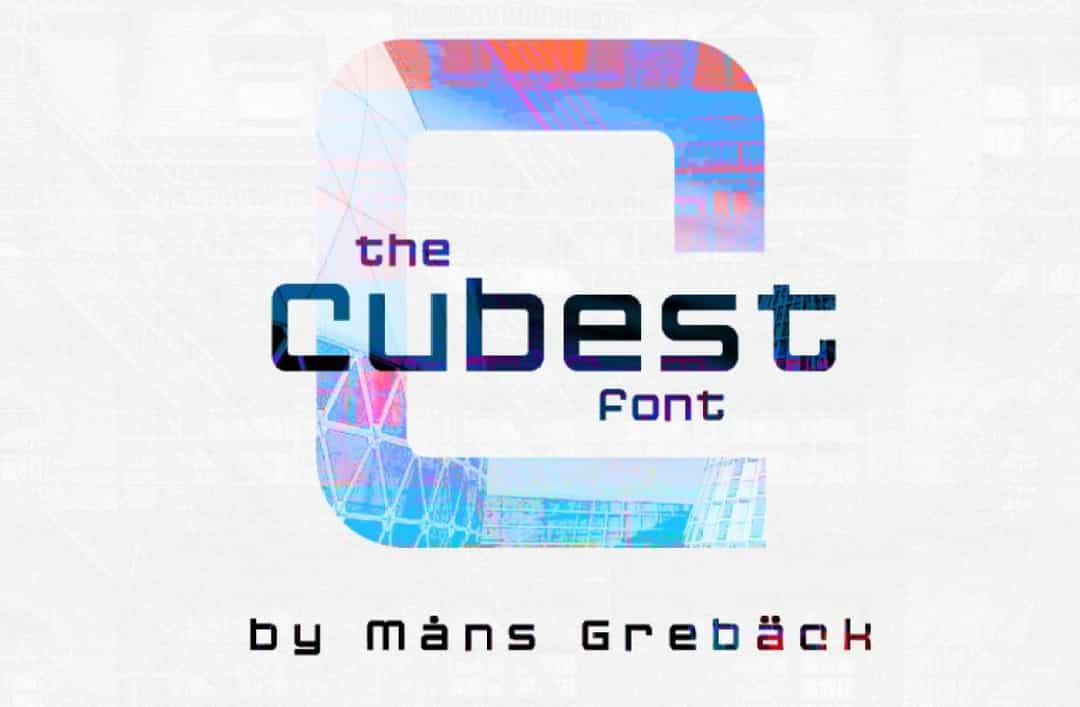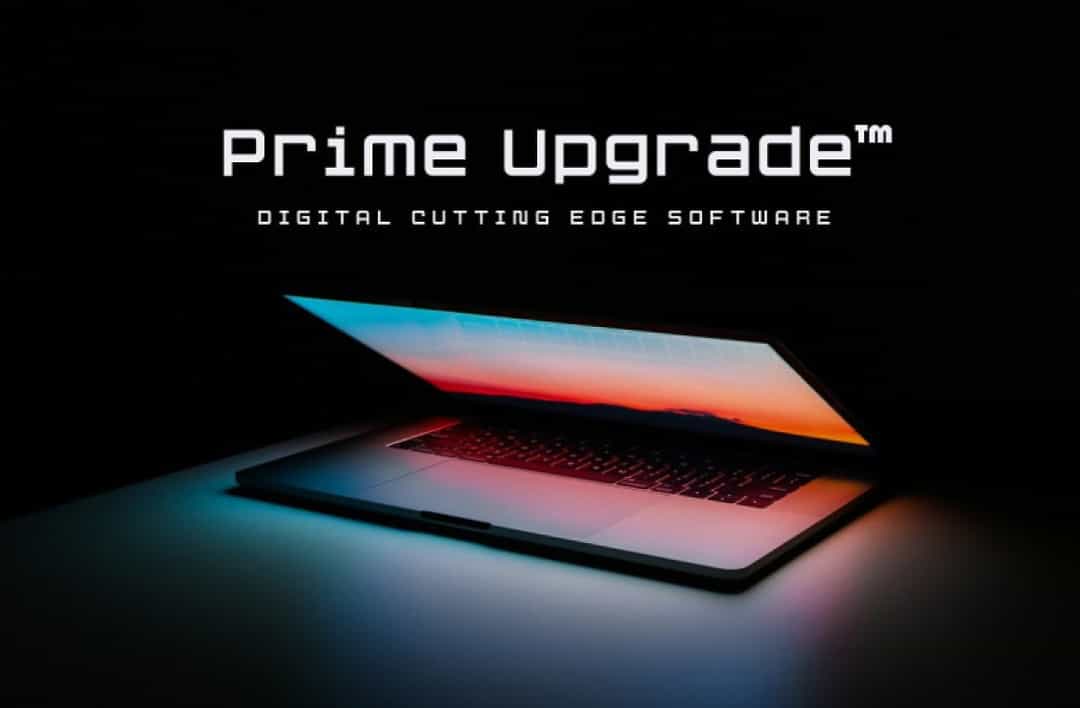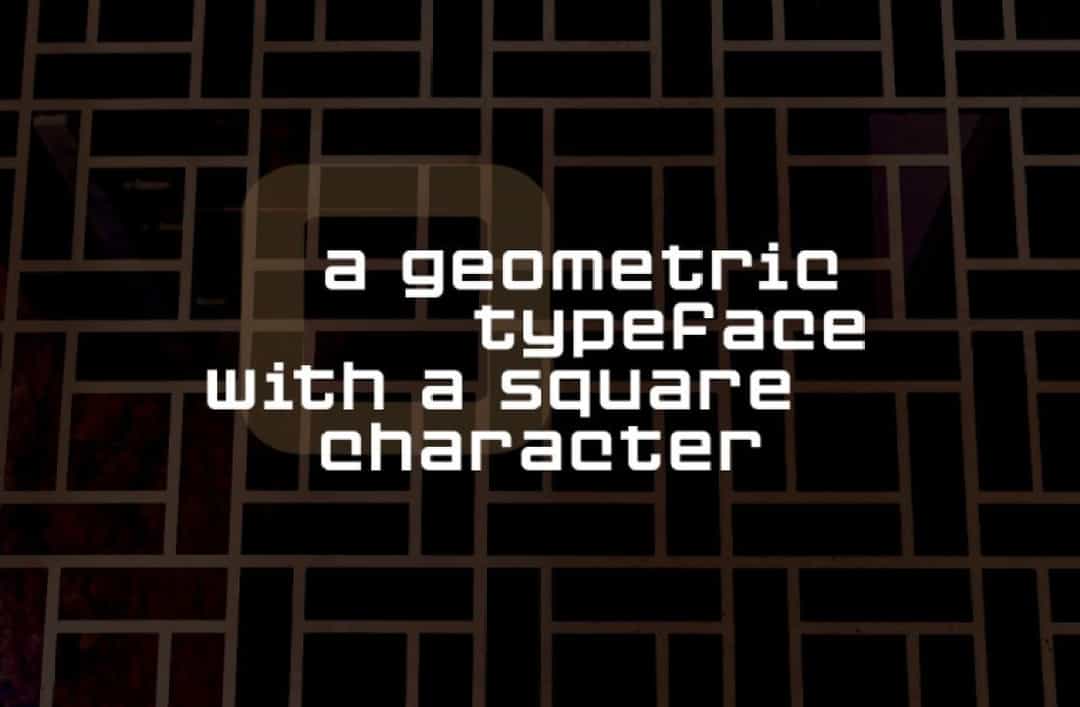
Cubest is an abstract Sans-Serif typeface created by Mans Greback in 2021 and designed for futuristic usage with an unilined, square appearance with retro digital characteristics. The family comprises eight styles including Bold, Medium and Light Bold as well as monospace variants such as Cubest Variable; all styles also come equipped with their respective weight available as an italic version.